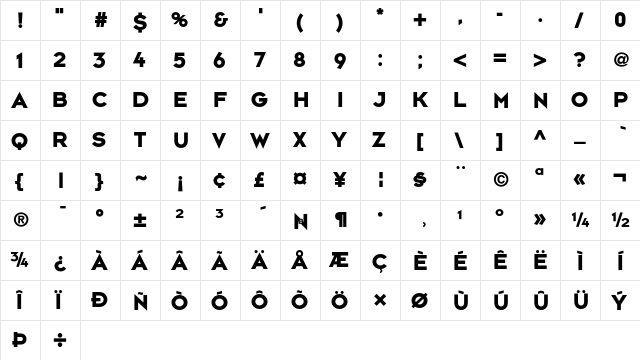
Bonn BoldCaps
Design Context for Bonn Typeface
Bonn takes a measured approach to typography — its balanced proportions and neutral character make it a reliable workhorse for both digital and print work. The heavy weight commands attention and anchors typographic hierarchies.